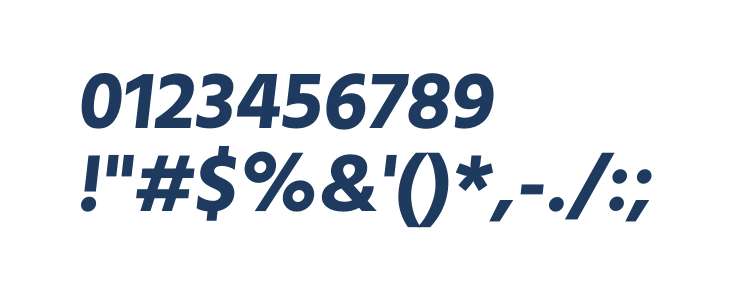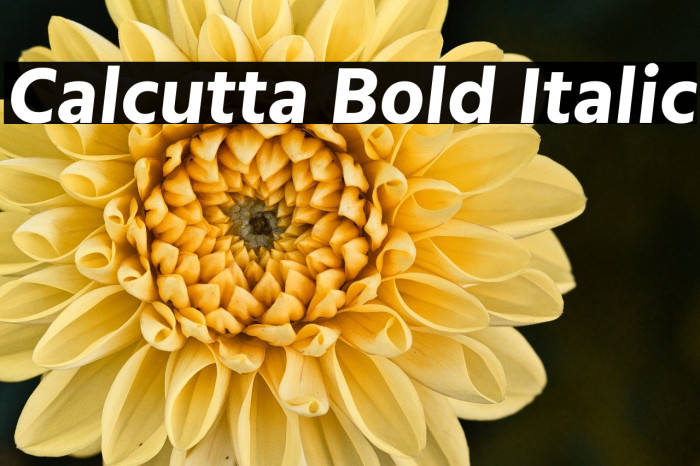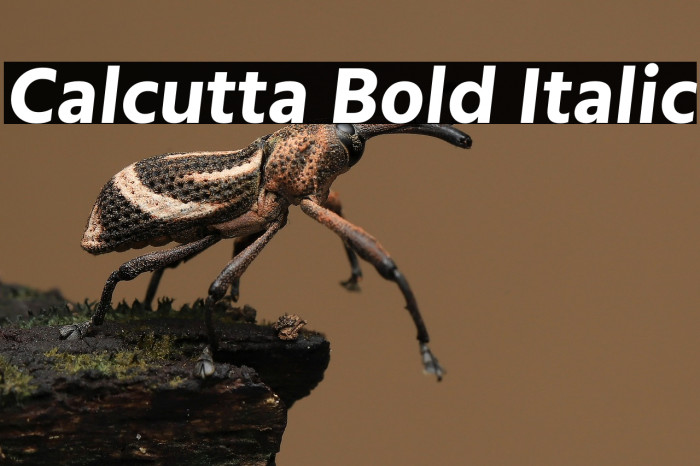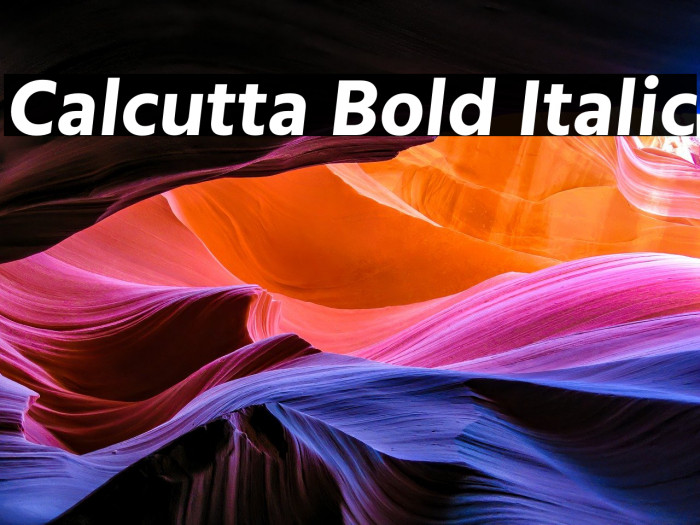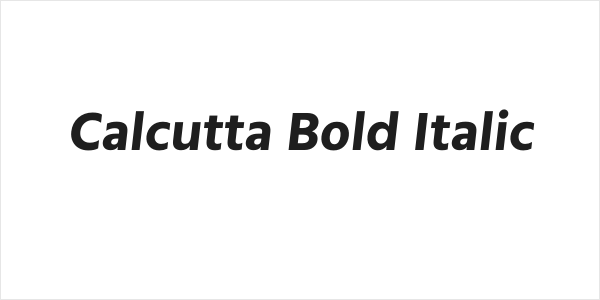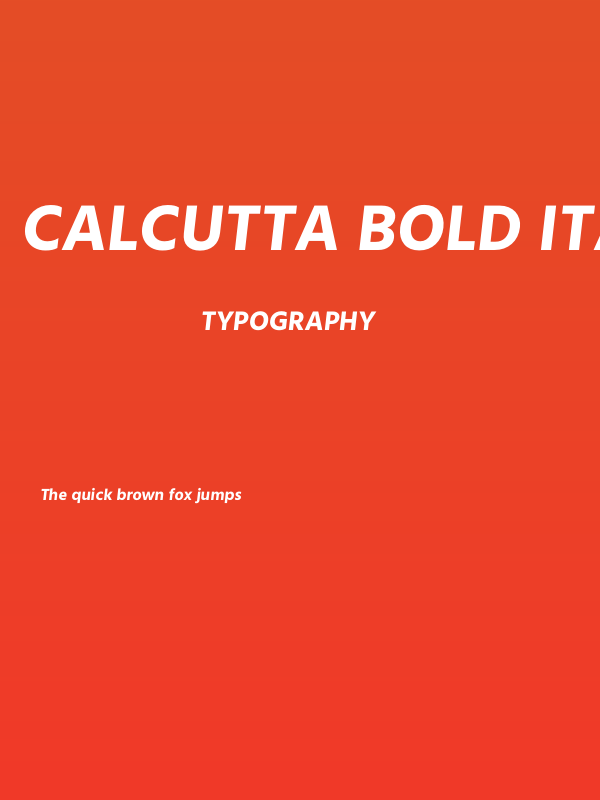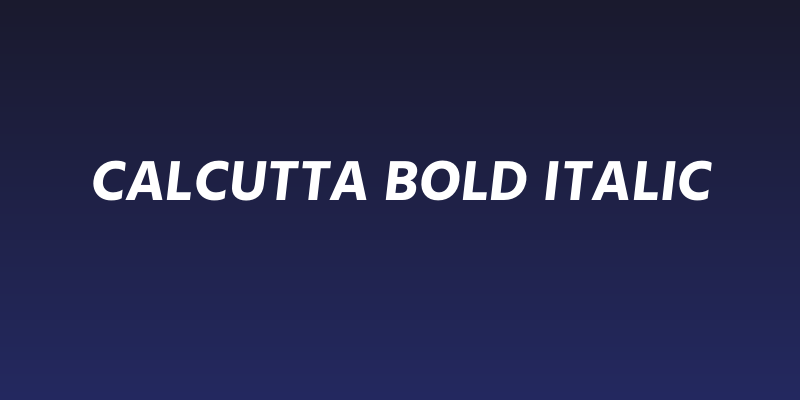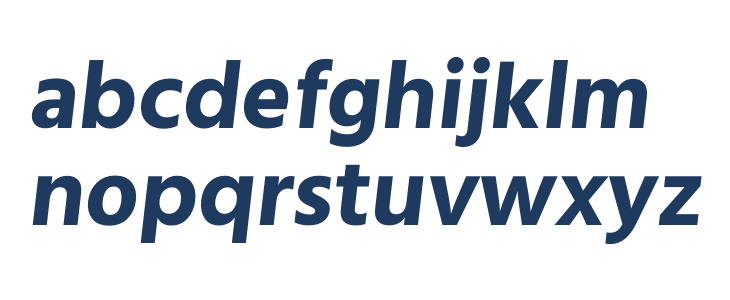
Calcutta Bold Italic Font
Calcutta Bold Italic Description
This font features a bold and italicized style, combining strength with a dynamic slant. The characters are well-defined with a consistent stroke width, providing a robust and confident appearance. The uppercase letters are prominent and commanding, while the lowercase letters maintain a smooth and flowing form. The numerals are clear and easily distinguishable, making them suitable for various applications. Special characters are included, offering versatility for different contexts. The overall design is modern and impactful, suitable for making statements in headlines or logos.